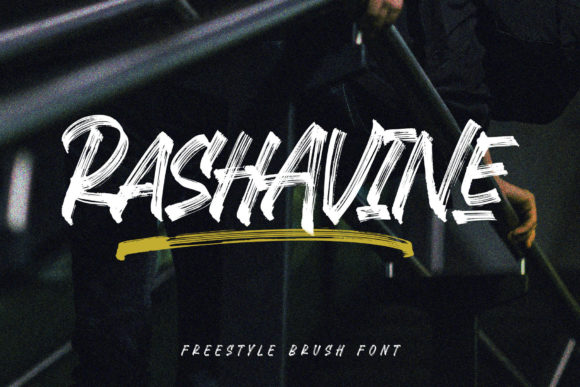
How Rashavine Transformed My Small Business Branding
It all started with a simple label. I was getting ready to launch a new line of handmade candles and wanted the packaging to feel as warm and inviting as the scent inside. I had the design mostly figured out—soft colors, minimalist layout, a clean logo—but something was missing. The font felt too generic. That’s when I discovered Rashavine, a brushed display font that gave my brand a fresh, handcrafted look without losing its professional edge.
Rashavine has a soft, slightly textured brush style that feels modern yet personal. It’s the kind of font that catches your eye without shouting for attention. The letterforms have a gentle flow and just enough variation to feel handmade, but not so much that they become hard to read. It’s perfect for small businesses like mine that want to stand out with a unique visual identity.
From Labels to Logos: Rashavine in Action
Once I used Rashavine on my candle labels, I realized how versatile it was. I started incorporating it into other areas of my branding. I redesigned my logo with a custom layout using Rashavine as the main typeface. It gave my brand a consistent, polished feel that customers began to recognize. I also used it on thank-you cards, product tags, and even digital ads.
It works especially well in short phrases and headlines. Whether it’s a product name on a candle jar, a tagline on a business card, or a title on a social media graphic, Rashavine adds a touch of personality without overwhelming the design. It’s not meant for long paragraphs, but that’s exactly what makes it ideal for display use—logos, packaging titles, banners, and decorative accents.
Why Typography Matters for Small Business Branding
Before I made the switch, I didn’t realize how much of an impact typography could have. But once I saw the difference, I understood: fonts shape the way people feel about your brand. A clean, professional font can make your business look trustworthy. A warm, hand-drawn font like Rashavine can make your brand feel approachable and creative.
Typography plays a big role in first impressions. When a customer sees your packaging, social media post, or website banner, they make a snap judgment about your brand. Rashavine helped me create a consistent visual language across all touchpoints. That consistency made my brand more memorable and easier to recognize.
Real-World Uses for Rashavine
I’ve used Rashavine for more than just candles. A local bakery reached out after seeing my packaging and asked if I could recommend a font for their new cupcake boxes. I suggested Rashavine, and they loved how it gave their brand a playful, handmade feel. Another friend who runs a skincare line used it on her product labels and noticed how much more “put together” her brand looked at pop-up markets.
It’s also great for digital use. I use it in my Instagram story templates, website banners, and even email headers. On mobile screens, it still reads clearly at larger sizes, which makes it perfect for thumbnails and highlight covers. For printed materials like menus, stickers, or packaging mockups, the brushed texture adds depth without compromising readability.
Pairing Rashavine With Other Fonts
One thing I learned while redesigning my brand was the importance of font pairing. Rashavine stands out on its own, but it works best when paired with a simpler font for body text or supporting details. I often pair it with a clean sans serif like Montserrat or Lato for contrast and readability.
If you're going for a more elegant look, try pairing it with a serif font like Playfair Display or a soft script font for a more romantic feel. The key is balance—since Rashavine is decorative, it needs a supporting font that lets it shine without creating visual clutter.
Things to Consider Before Using Rashavine
Also, make sure you’re getting the full package. Rashavine includes multiple styles, ligatures, alternates, and multilingual support. These features give you more flexibility when designing logos, labels, or packaging. You’ll also want to confirm the file formats included—OTF and TTF are standard, but some programs work better with one or the other.
Final Touches That Make a Difference
Since switching to Rashavine, my brand visuals feel more cohesive and intentional. It’s amazing how a single font choice can unify everything from packaging to social media. Customers have commented on how “elevated” my brand looks, and I’ve noticed more engagement since updating my visuals.
If you’re a small business owner, entrepreneur, or creator looking to refresh your brand identity, don’t overlook the power of typography. A display font like Rashavine can be the missing piece that makes your brand feel more polished, professional, and uniquely yours.